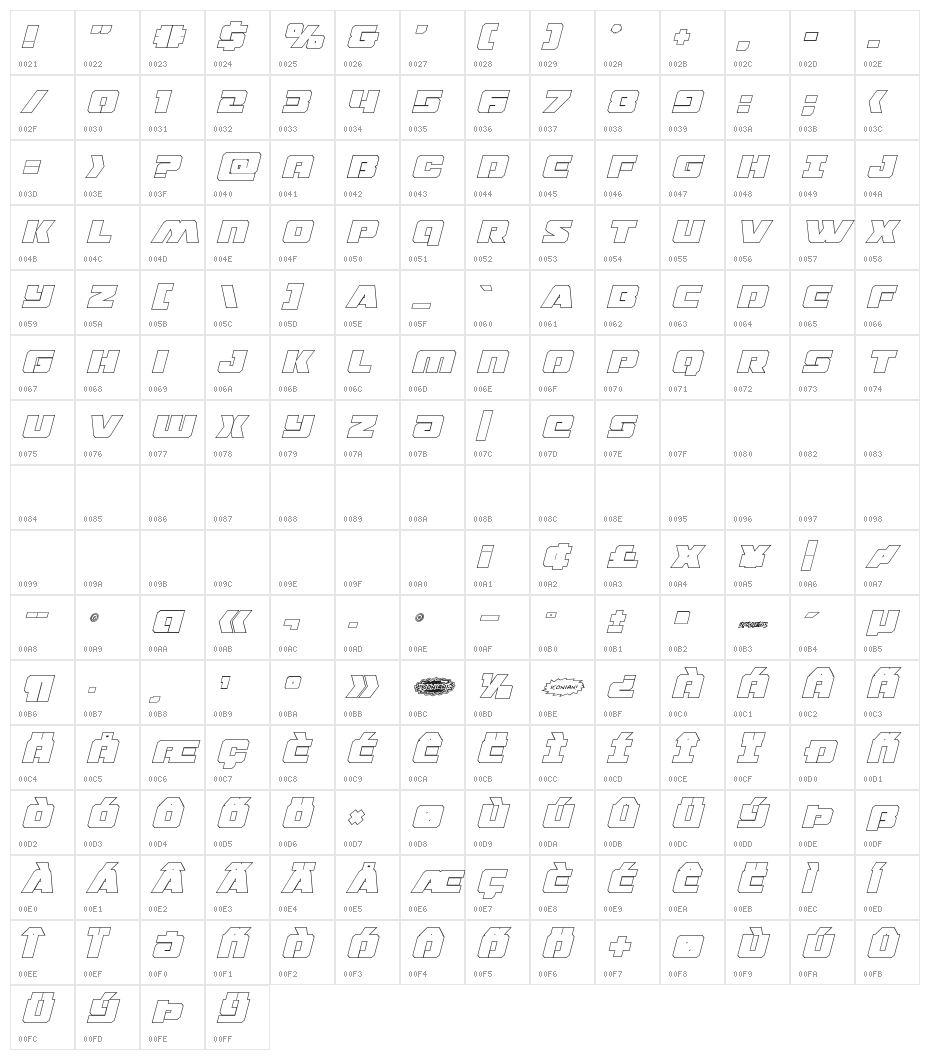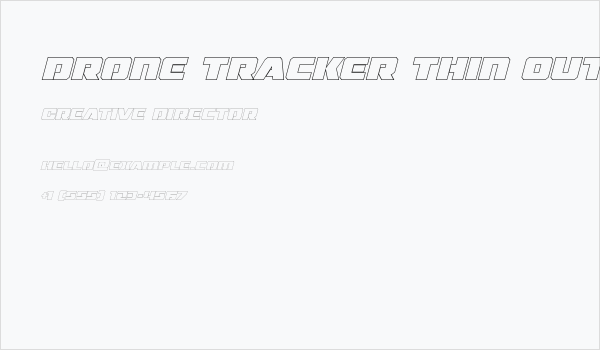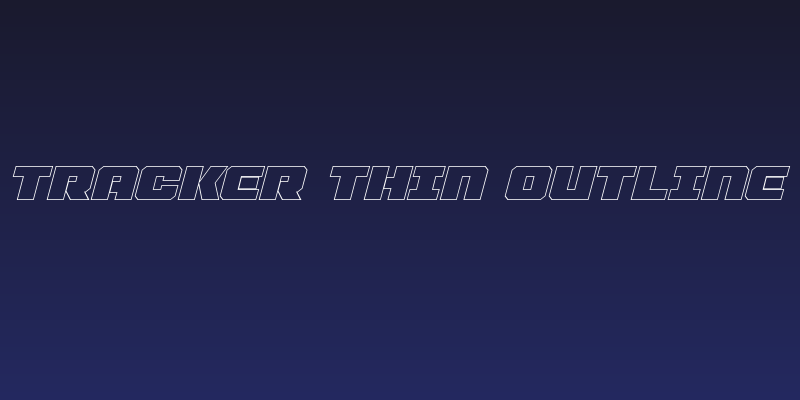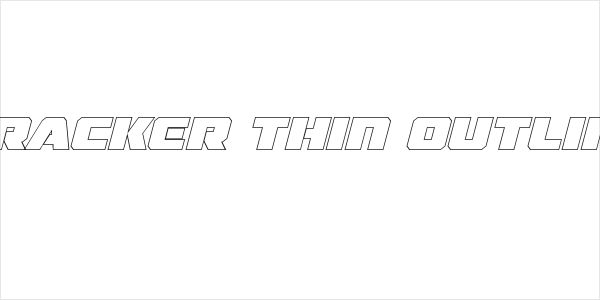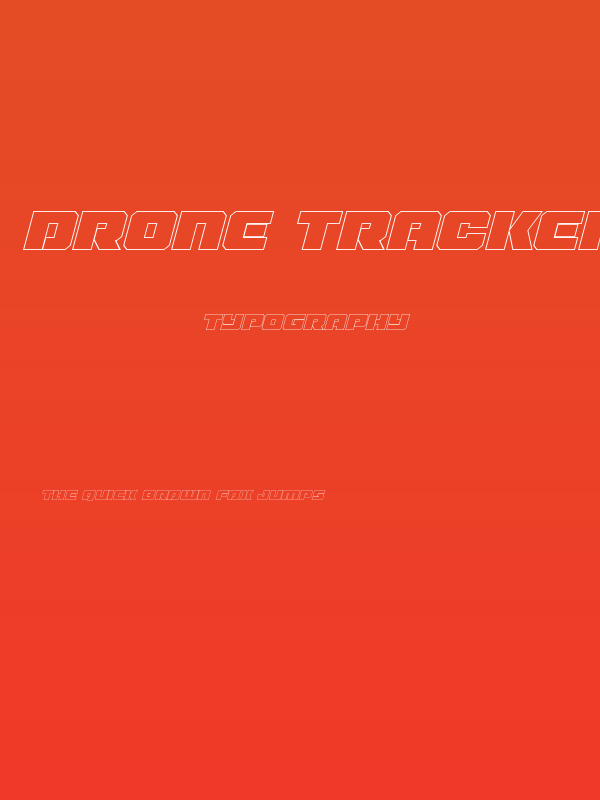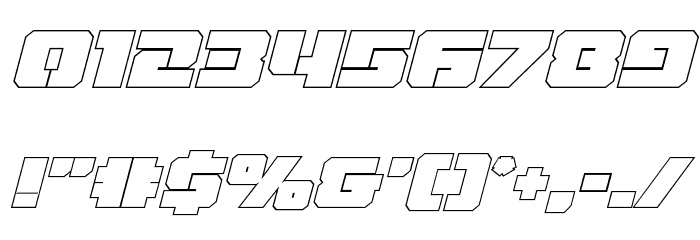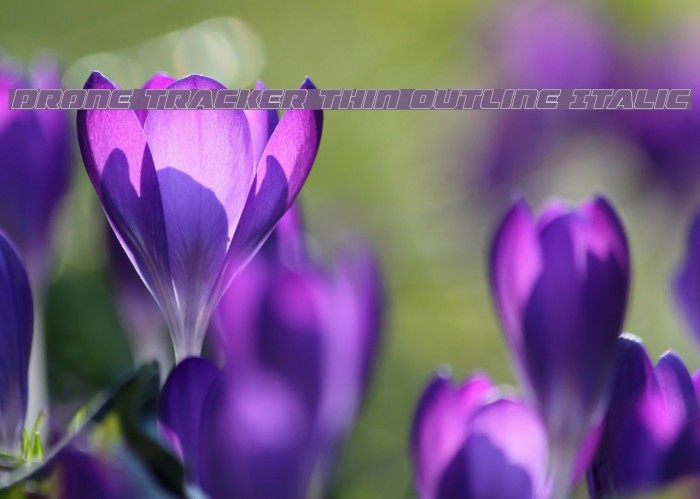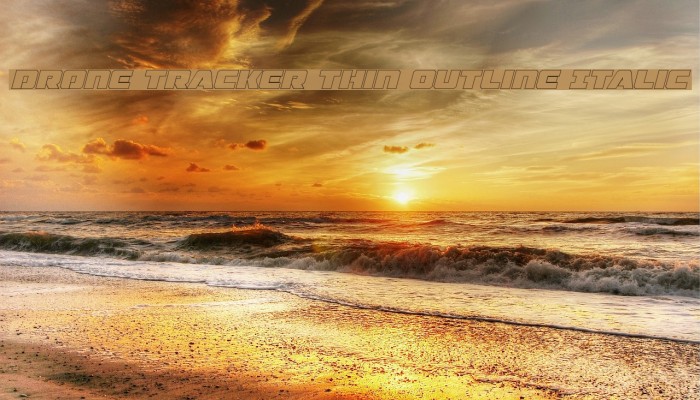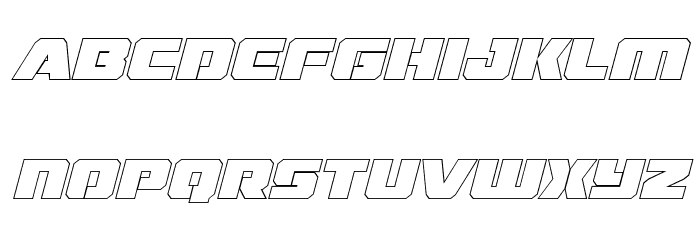
Drone Tracker Thin Outline Italic Font
Drone Tracker Thin Outline Italic Description
This font features a modern, geometric design with a thin outline that gives it a sleek and futuristic appearance. The italic style adds a dynamic and forward-leaning aspect, enhancing its contemporary feel. Each character is constructed with sharp angles and clean lines, creating a sense of precision and technological sophistication. The uppercase and lowercase letters maintain a consistent style, while the numbers and special characters complement the overall aesthetic. This font is ideal for projects that require a cutting-edge and innovative look.
| Proposed Projects | Ideal for tech branding, futuristic posters, digital interfaces, and innovative product packaging. |